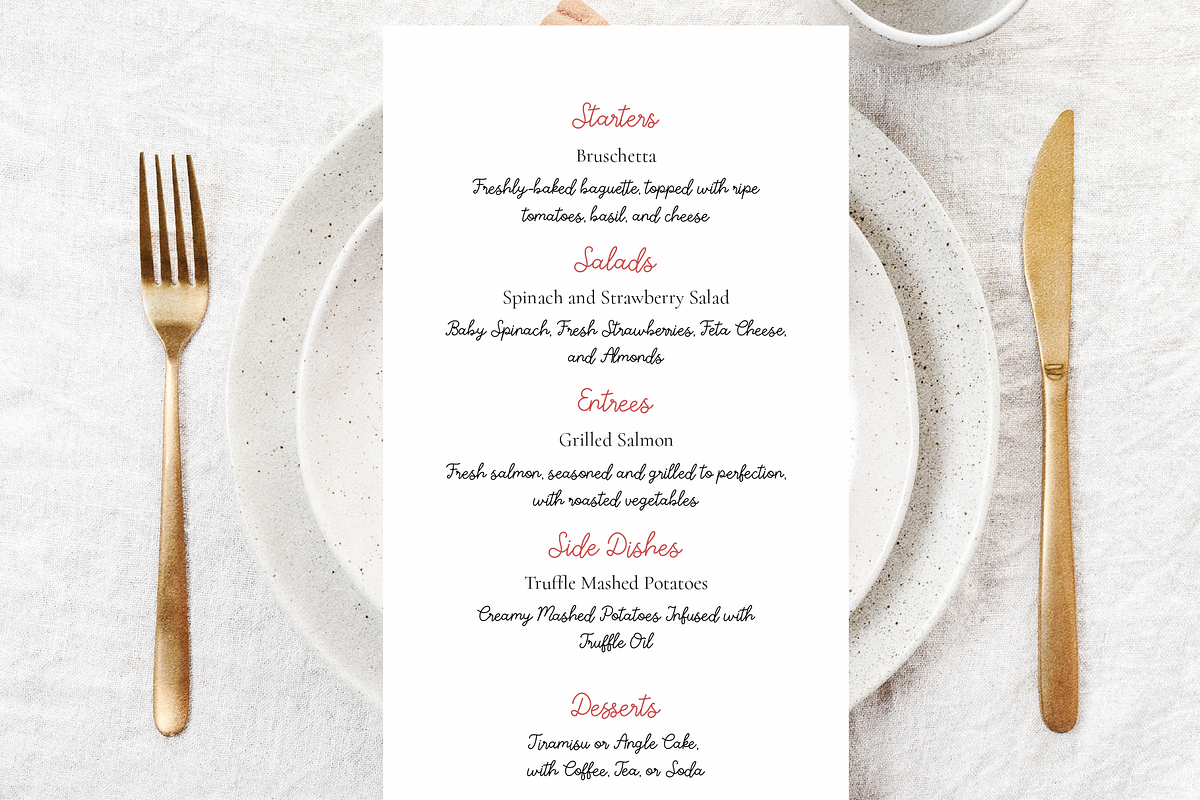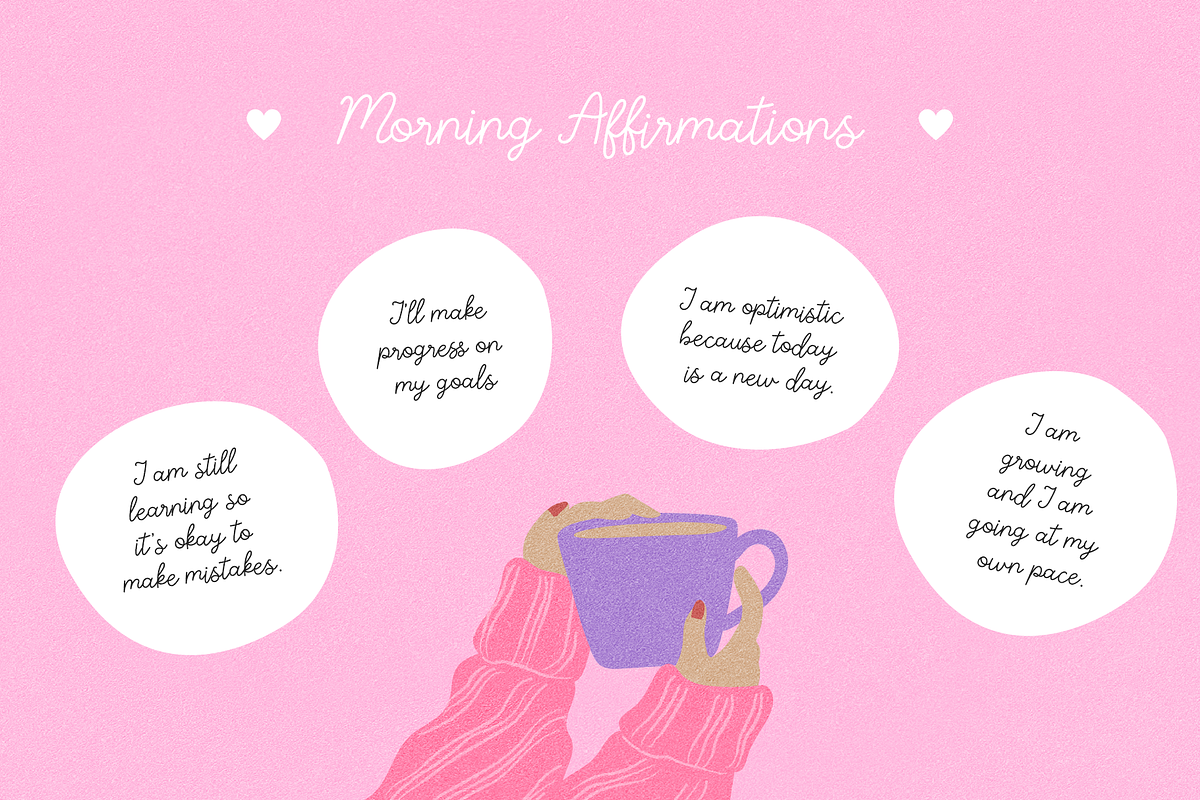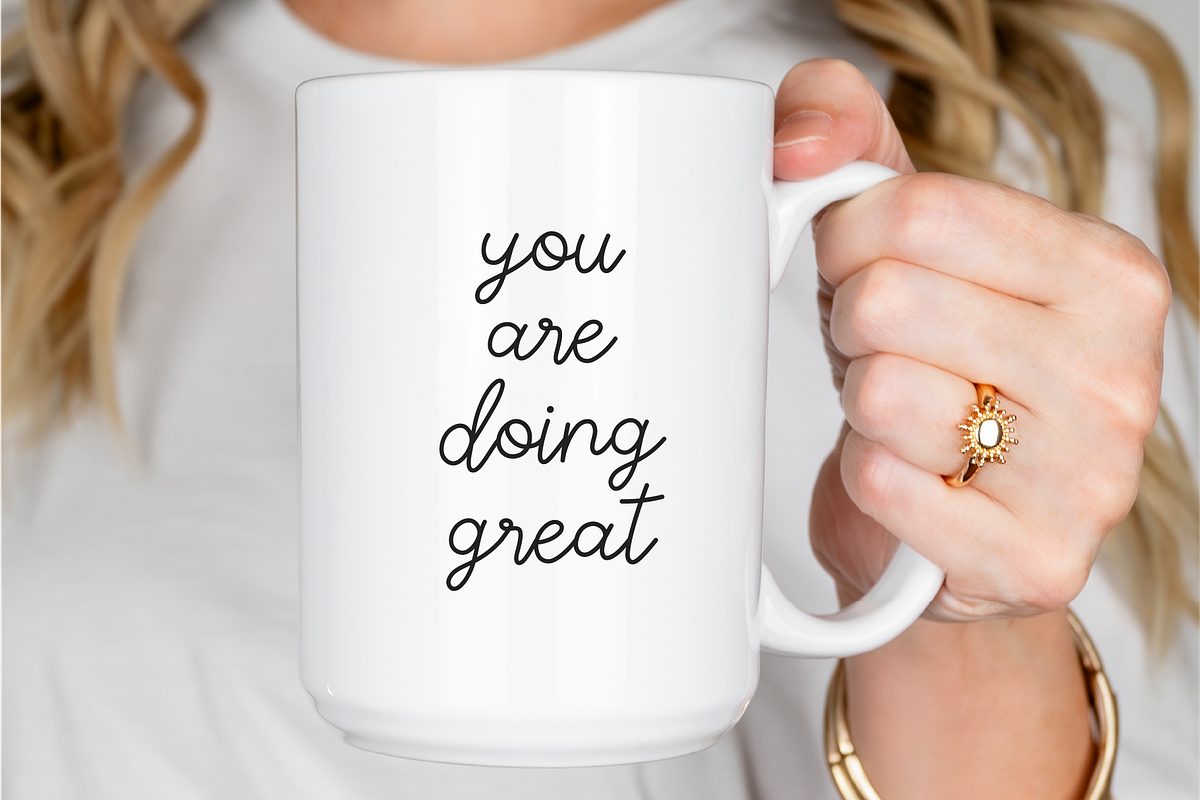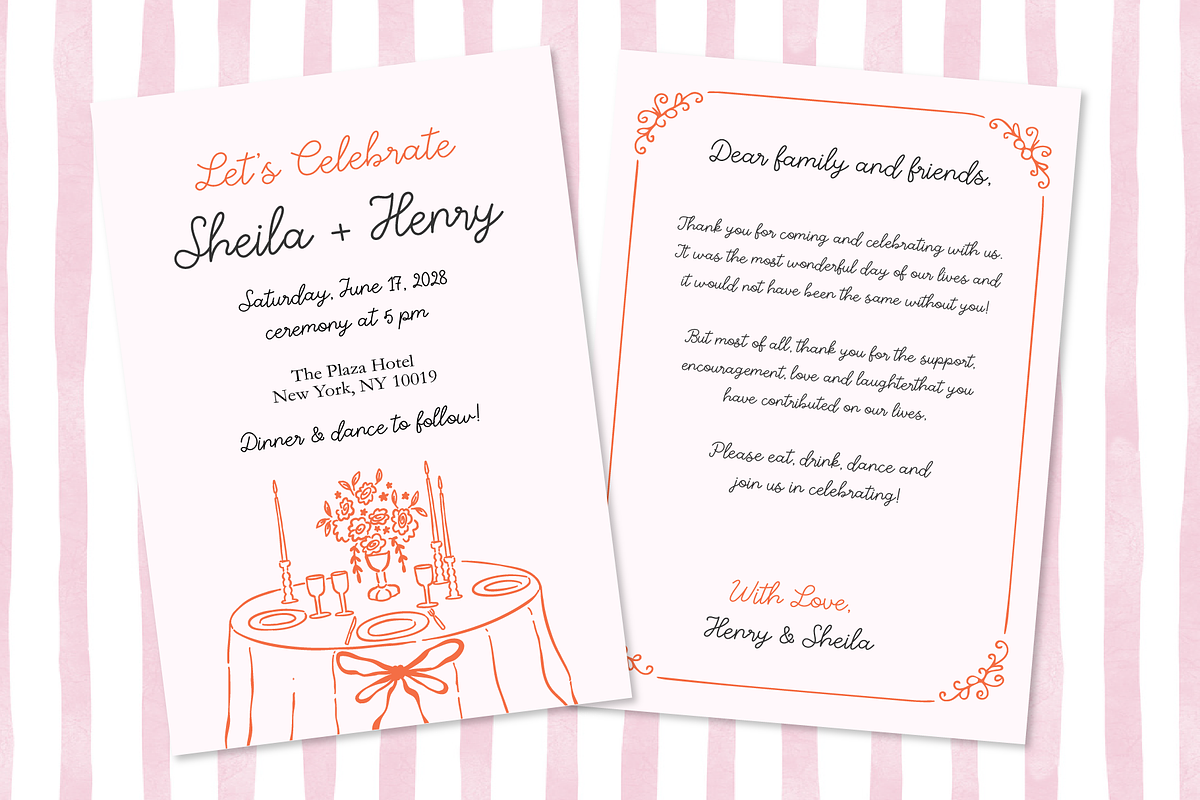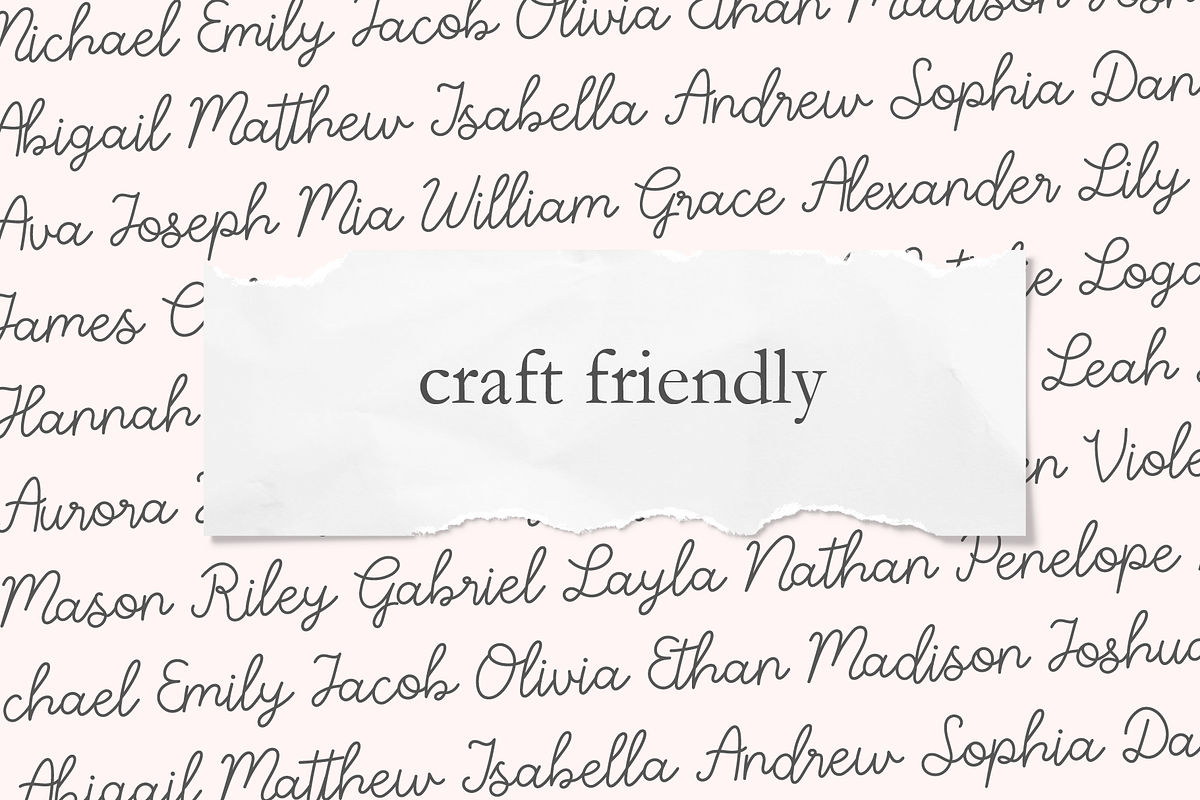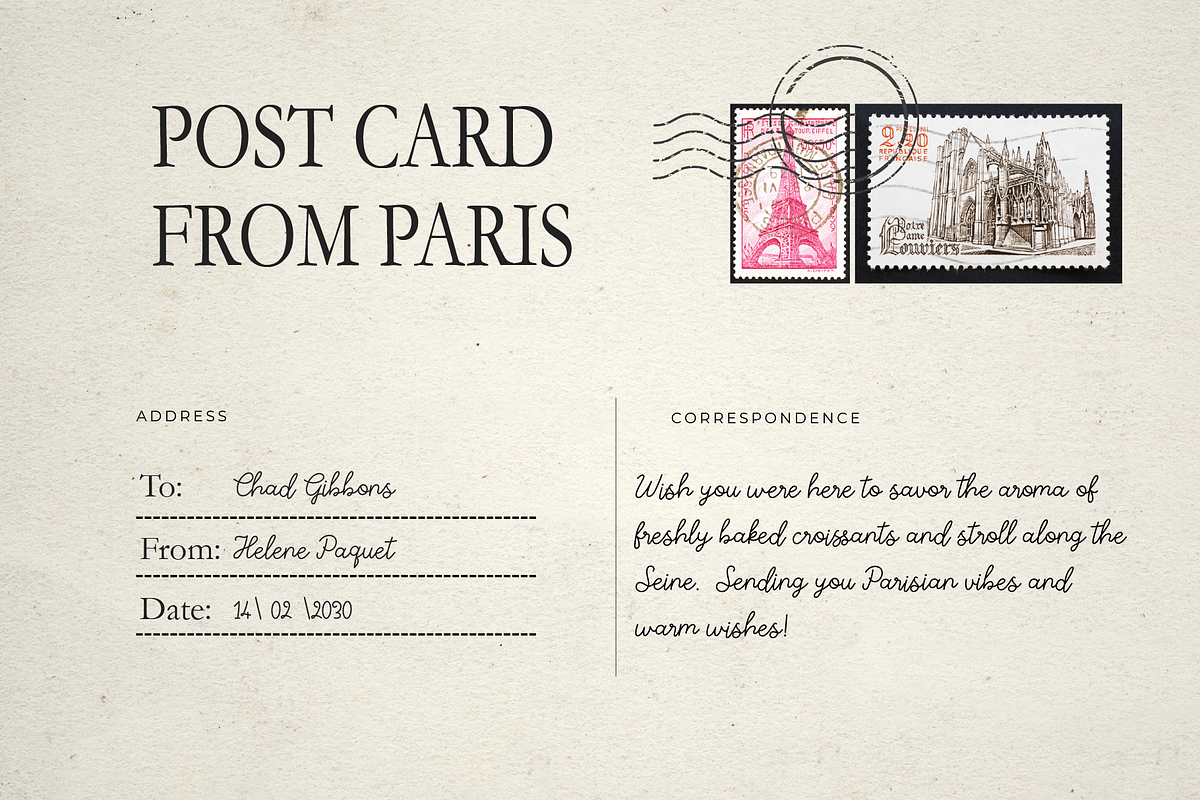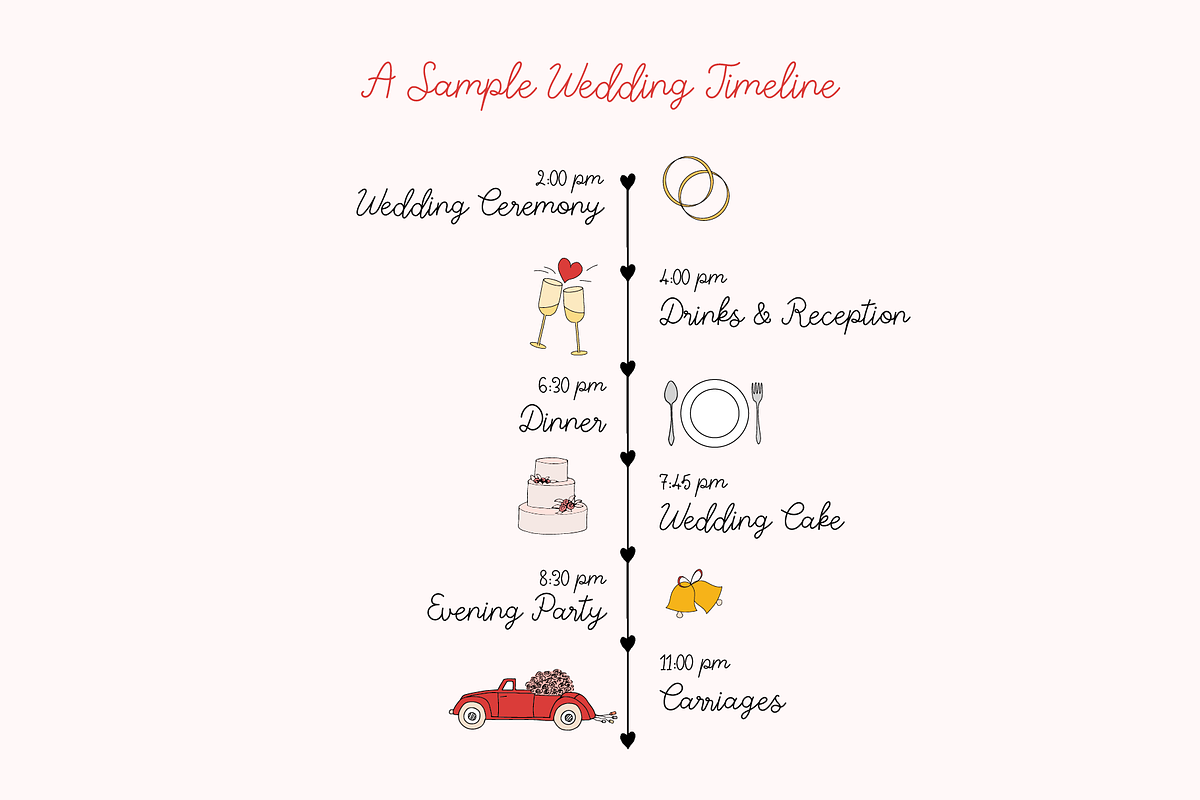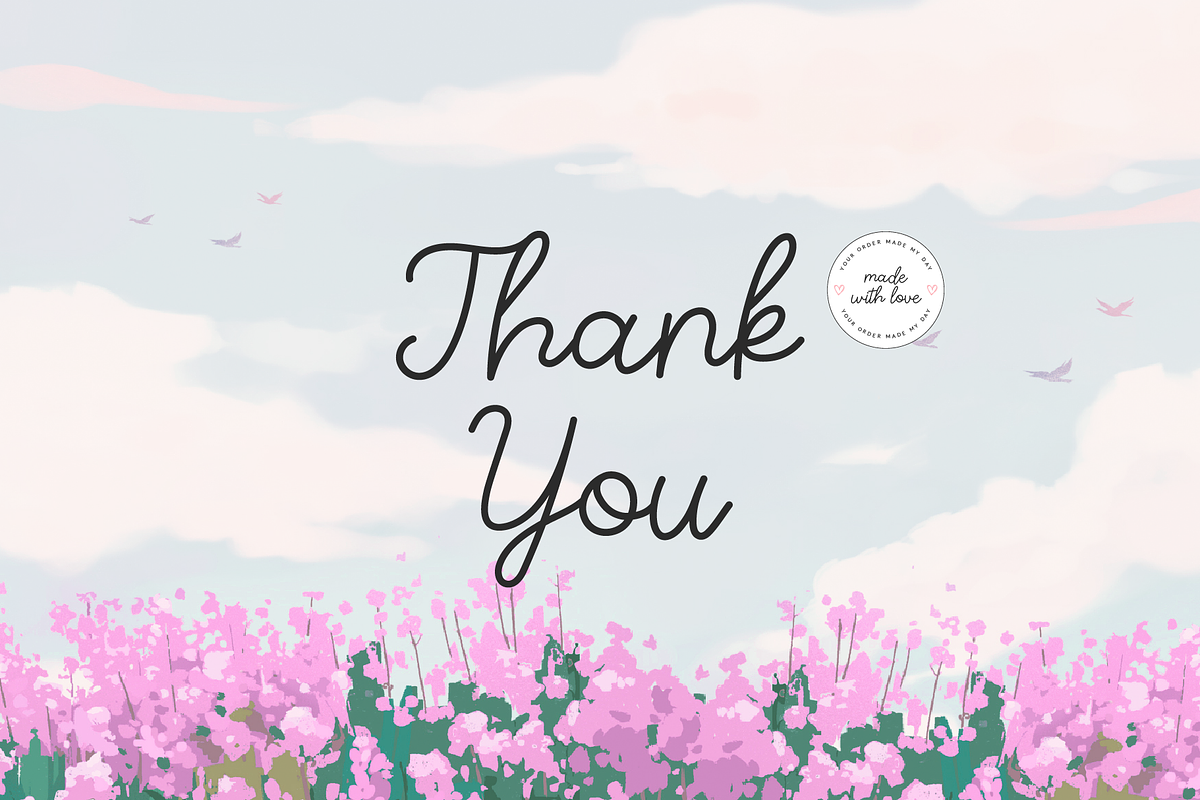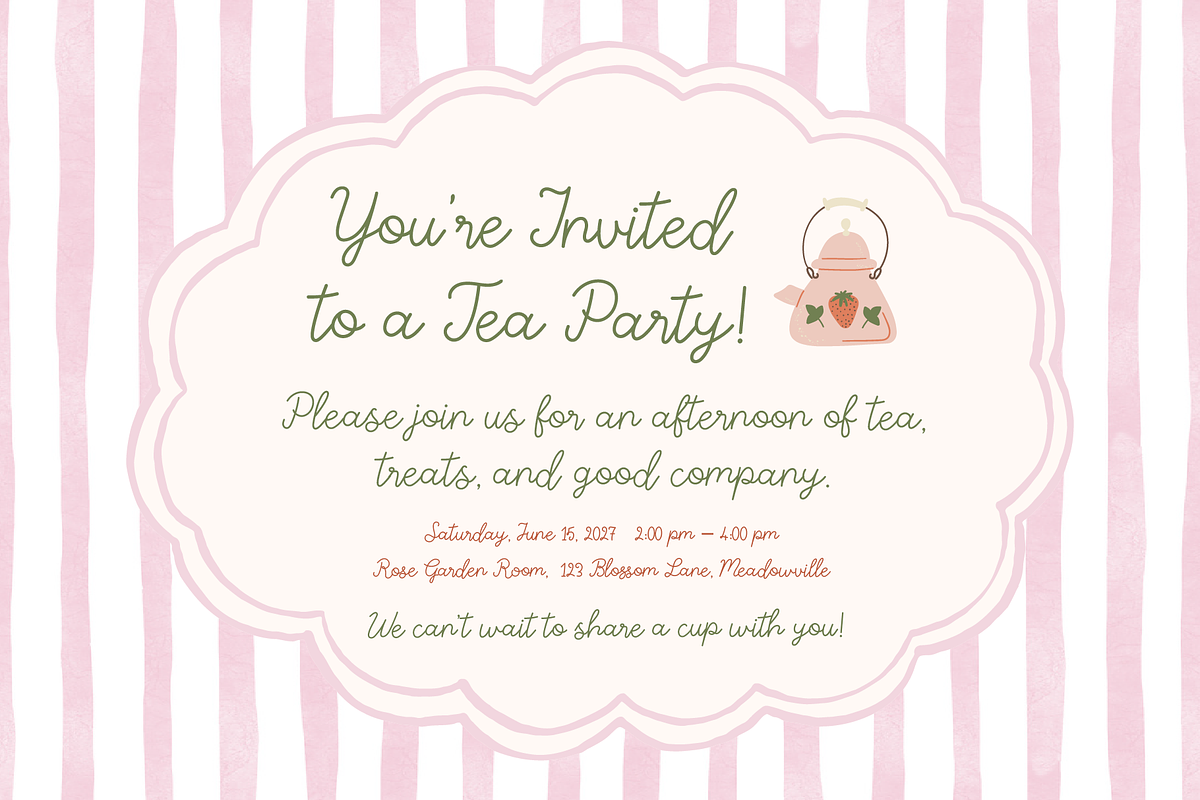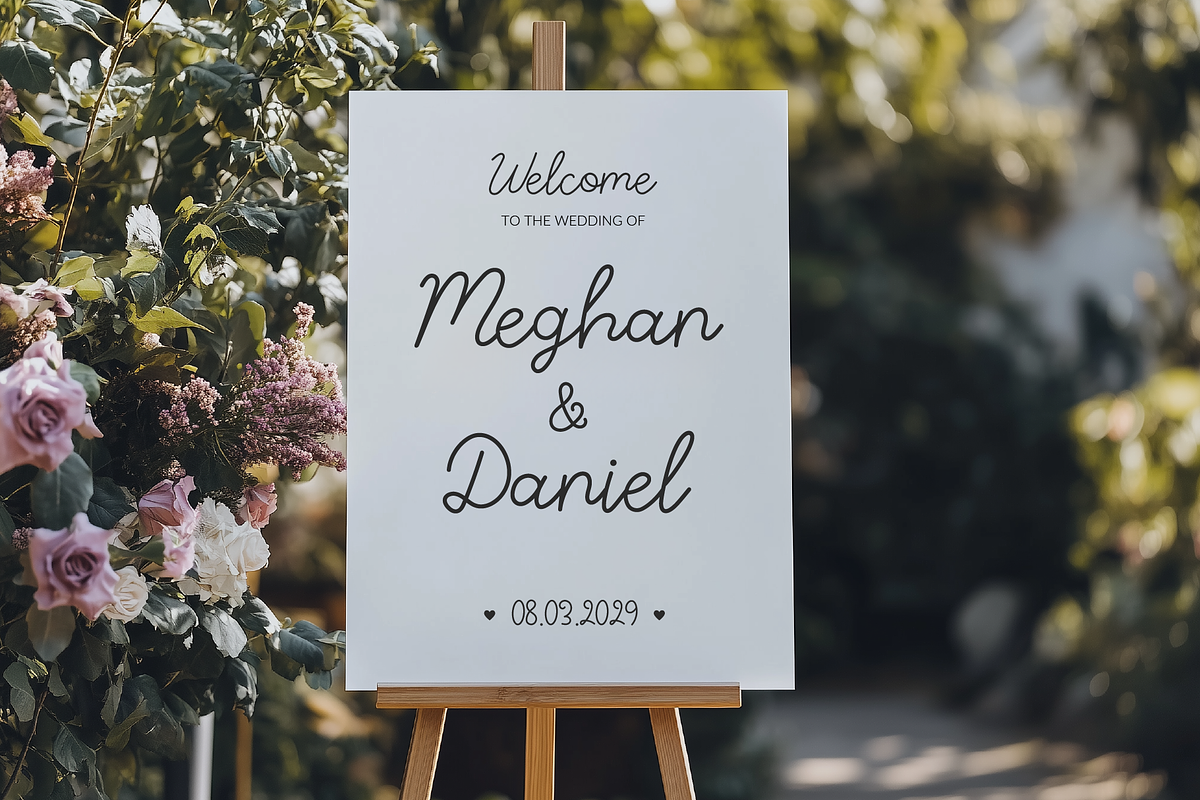
Simply Peaceful Thin Monoline Script
Say hello to Simply Peaceful, a lovely script font. It is great for craft projects, invitations, greeting cards, logos, branding, social media, printed goods or anything that requires a touch of elegance and personality.
• Thin Monoline Script
• Standard characters (lowercase, uppercase, numbers, punctuation)
• Ligatures